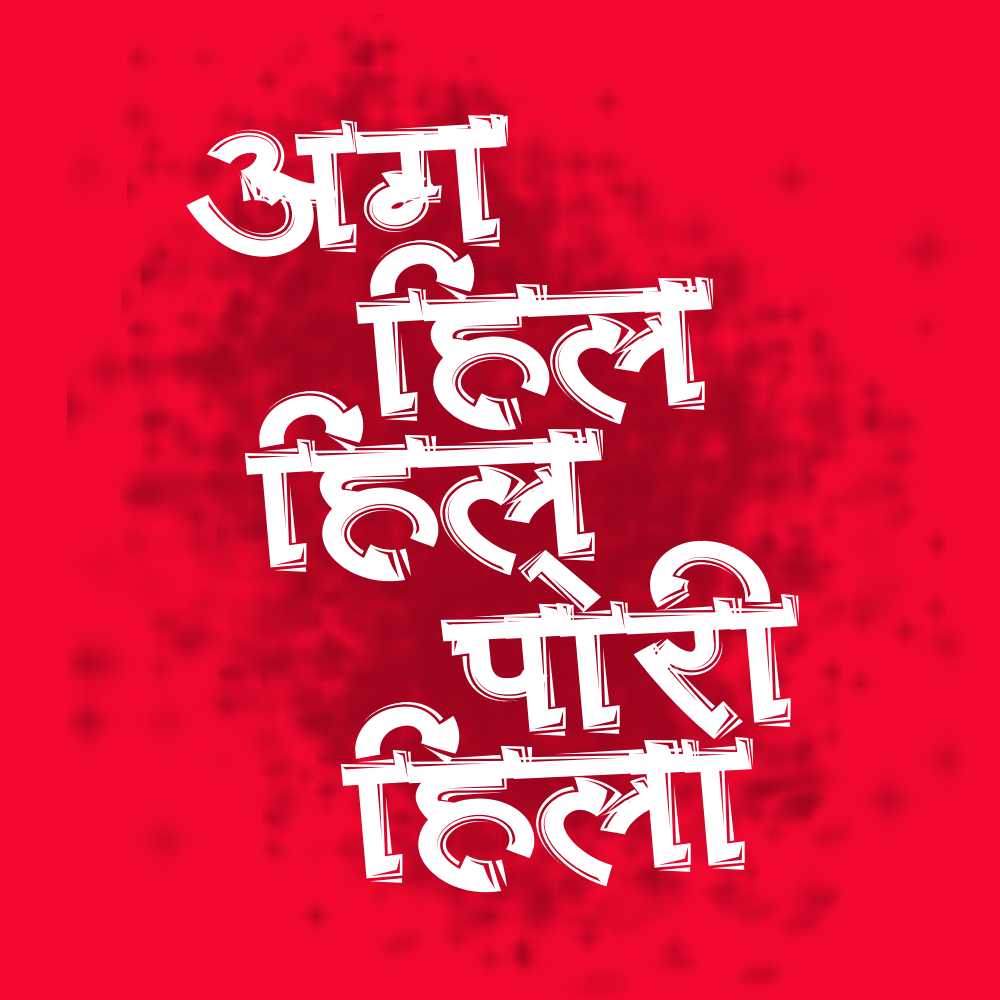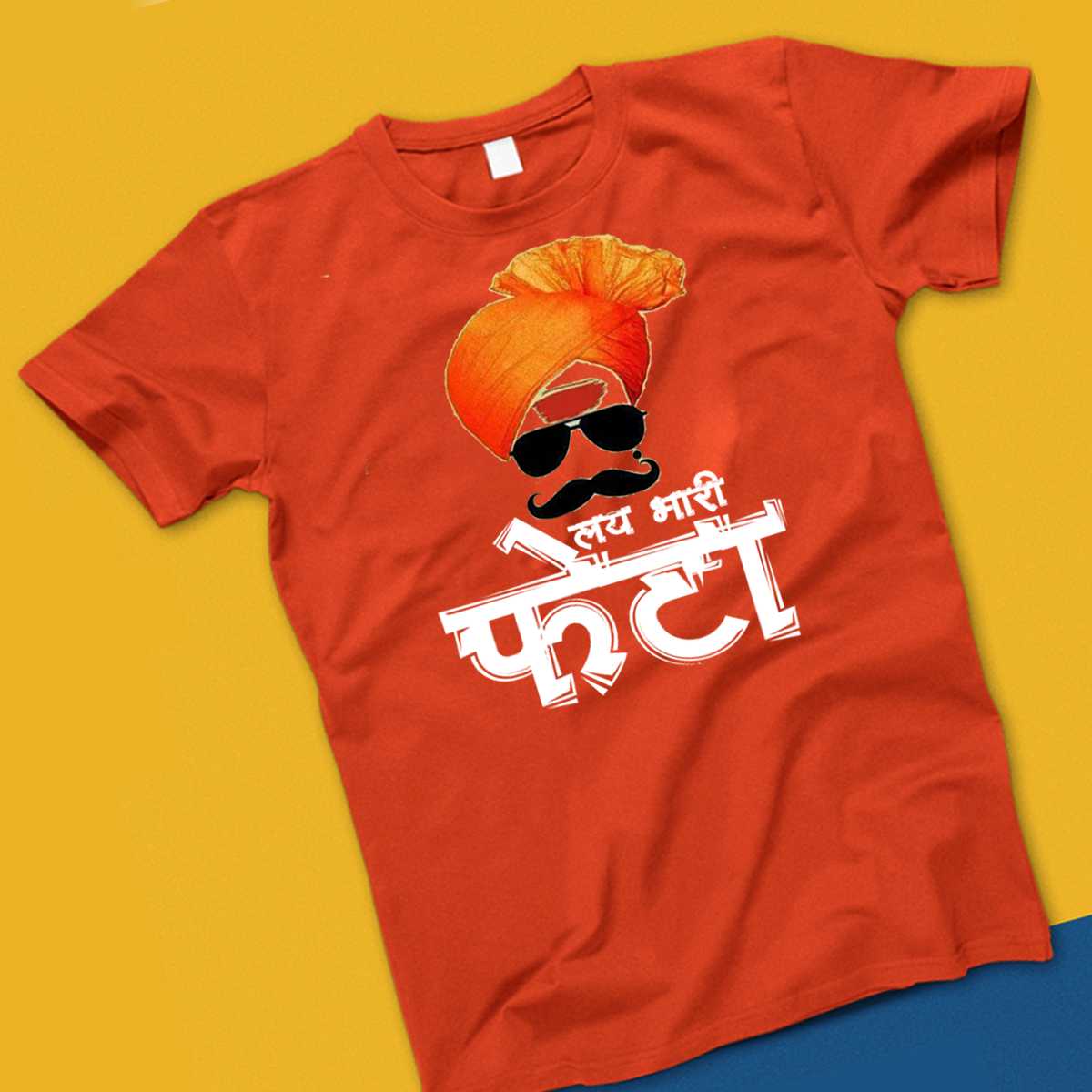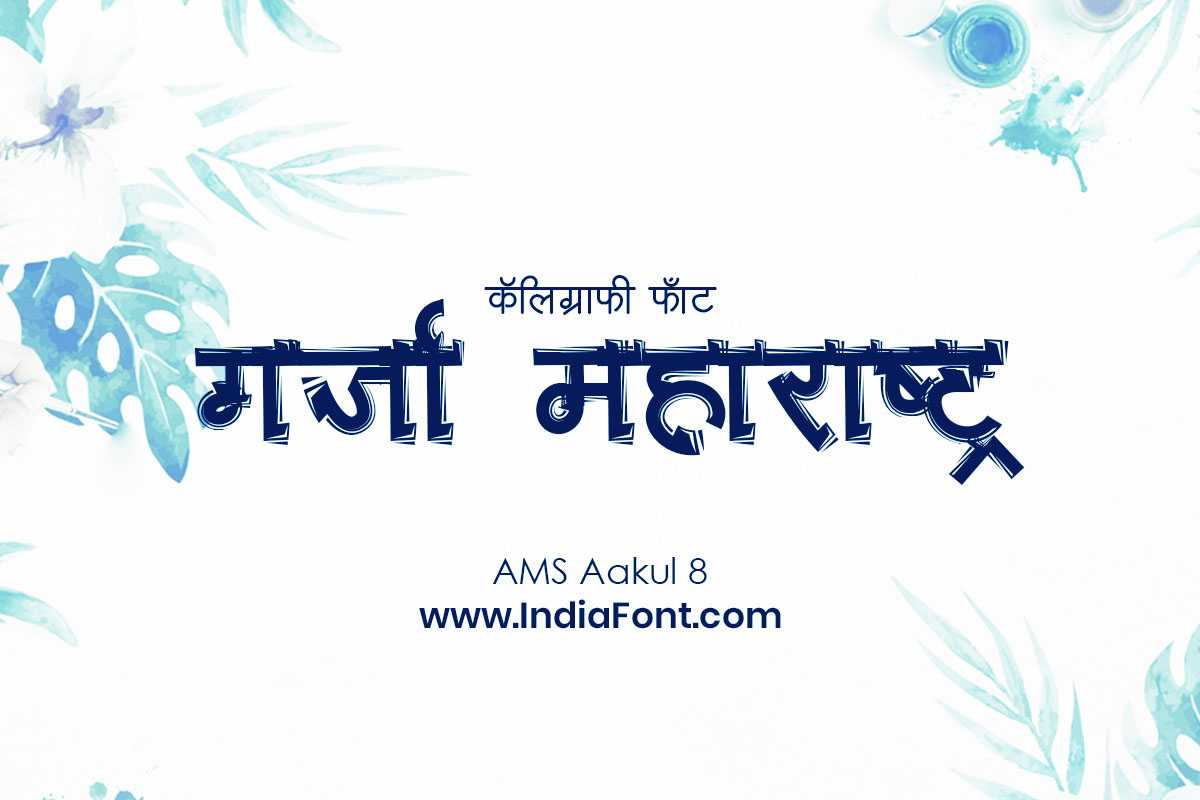
AMS Aakul 8
AMS Aakul 8 is a modern and versatile Devanagari font that combines elegance with functionality. With its free lines and balanced proportions, this typeface is perfect for a wide range of design projects.
AMS Aakul 8 is a modern and versatile Devanagari font that combines elegance with functionality. With its free lines and balanced proportions, this typeface is perfect for a wide range of design projects. This decorative font combines elegance with functionality, making it perfect for various design applications.
AMS Aakul 8 is a professionally crafted decorative typeface that brings clarity and style to your projects. Designed with attention to detail, it supports hindi and marathi characters flawlessly.
Whether you're working on invitations, logos, posters, or other creative projects, AMS Aakul 8 delivers consistent performance across both digital and print media. This carefully designed typeface ensures readability and visual appeal in all your design work.
AMS Aakul 8 excels in various design scenarios. Here are the most suitable applications:
AMS Aakul 8 is a professionally crafted decorative font that exemplifies modern Hindi typography design. This free font is perfect for designers seeking professional branding and logo design projects.
Available in 1 weight and supporting hindi, marathi scripts, AMS Aakul 8 offers exceptional versatility for both digital and print media. Whether you're working on invitations, logos, posters, this carefully designed typeface ensures consistent quality and professional results across all your typography projects.